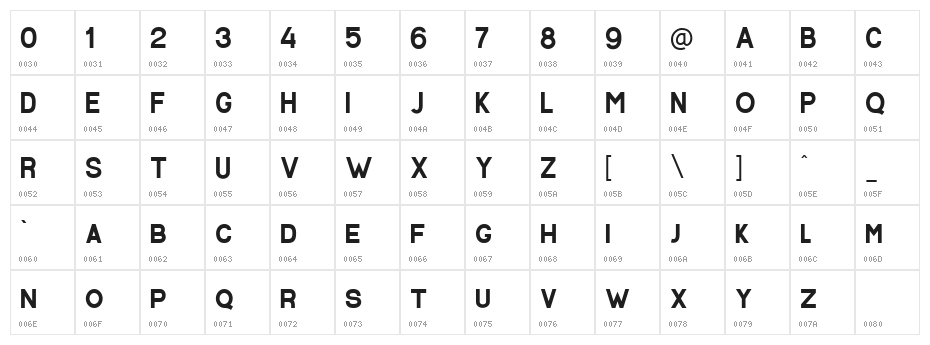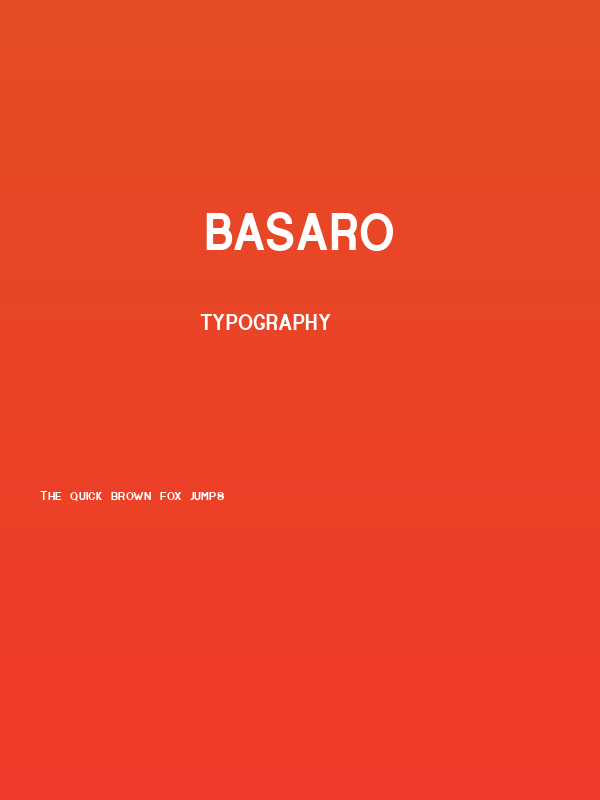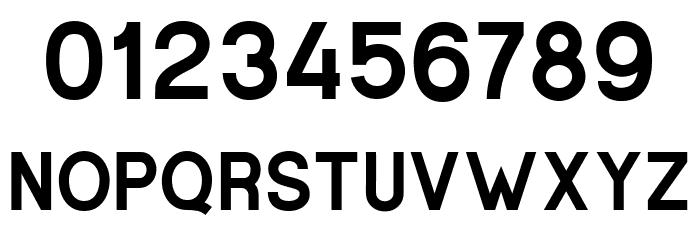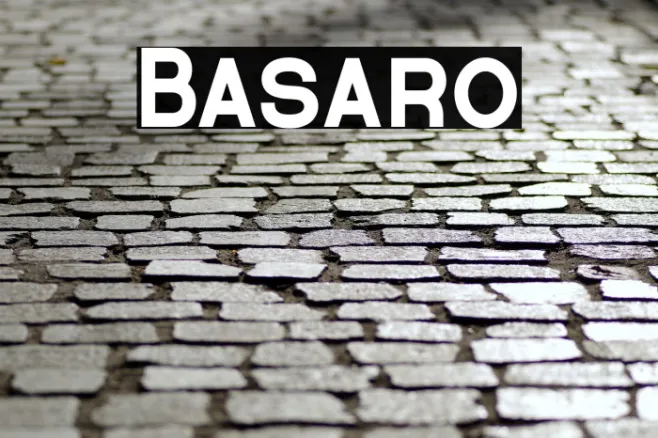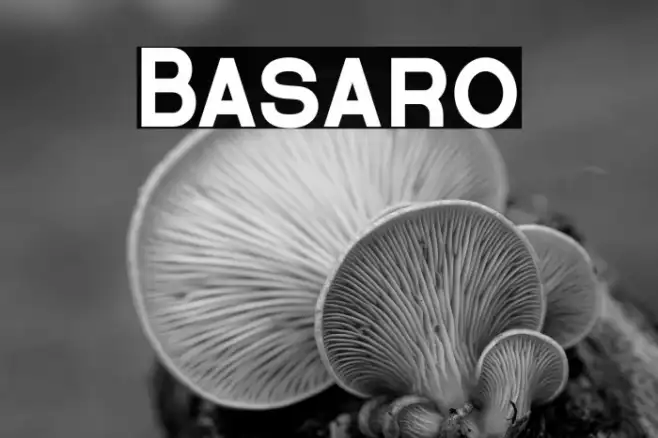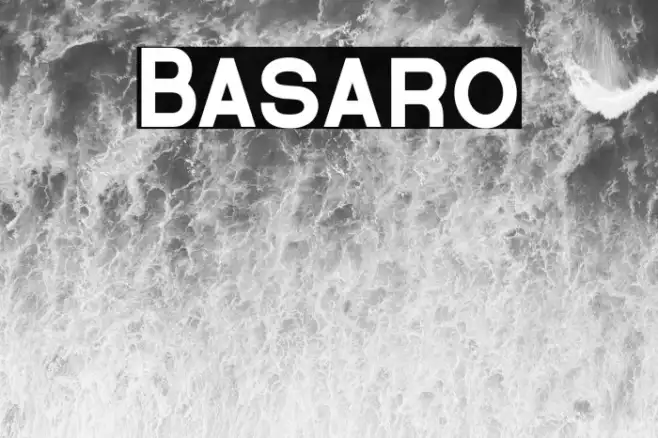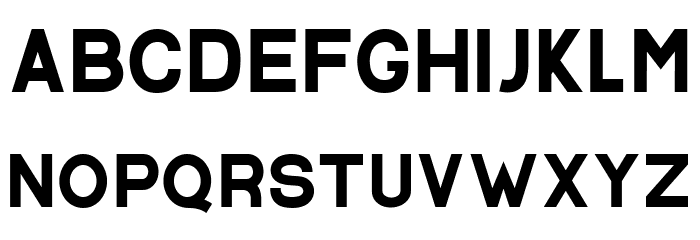
Basaro Font
Basaro Description
This typeface features bold, geometric letterforms with a strong, modern aesthetic. The uppercase letters are uniform in height, creating a cohesive and balanced appearance. The strokes are consistent in width, contributing to a clean and structured look. The numerals are similarly designed, maintaining the geometric style with rounded edges that add a touch of softness to the otherwise bold design. The overall impression is one of strength and clarity, making it suitable for impactful headlines and branding. The spacing between characters is tight, enhancing the compact and powerful feel of the text.
| Proposed Projects | Ideal for branding, headlines, posters, and modern design projects. |